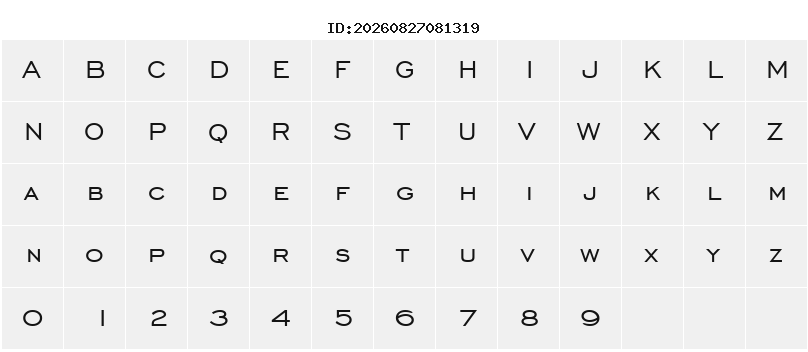
About 420-CAI978.ttf
420-CAI978.ttf is a modern, elegant sans-serif font designed for ultimate readability and visual harmony. Perfect for branding, headlines, web design, and print materials.